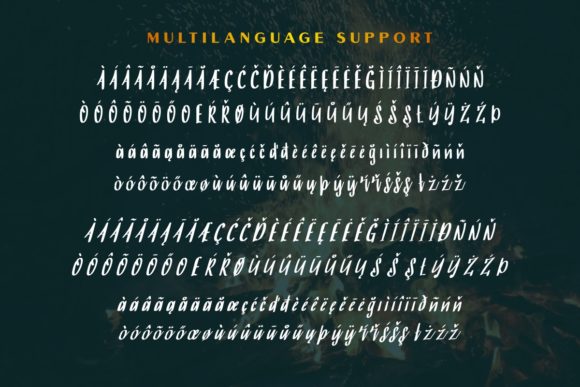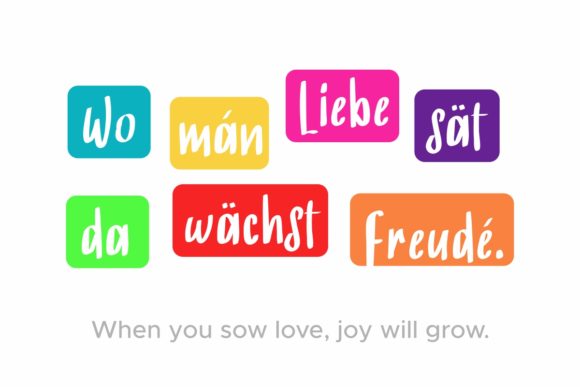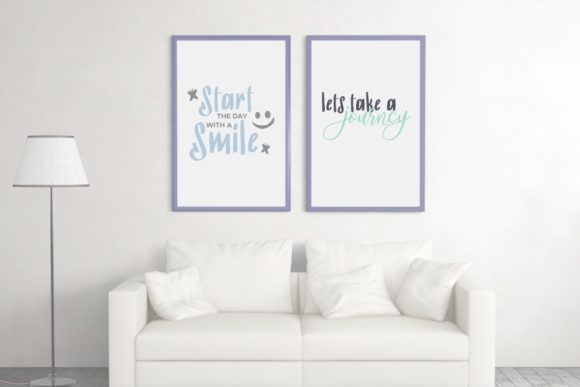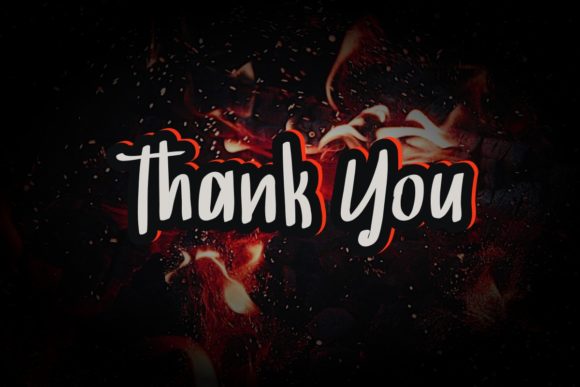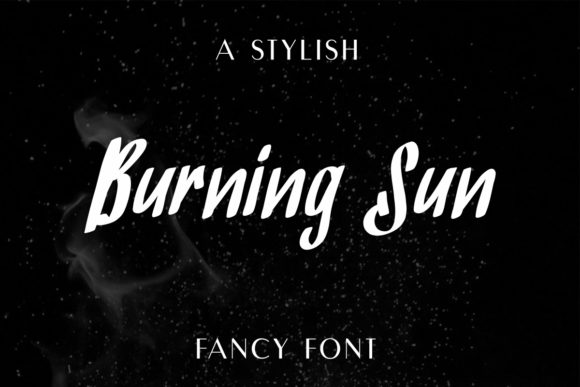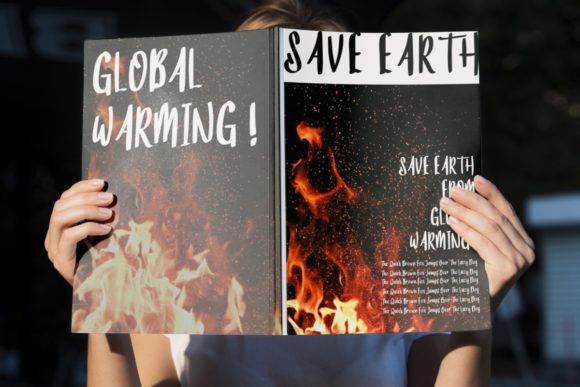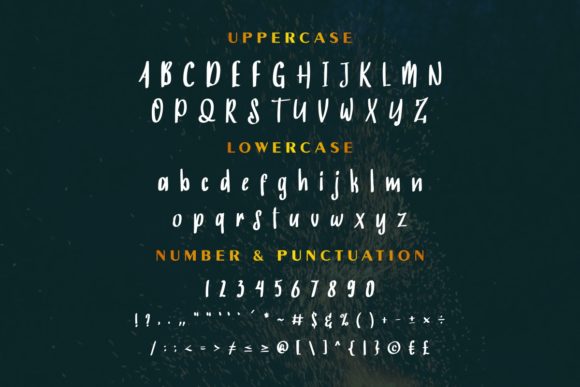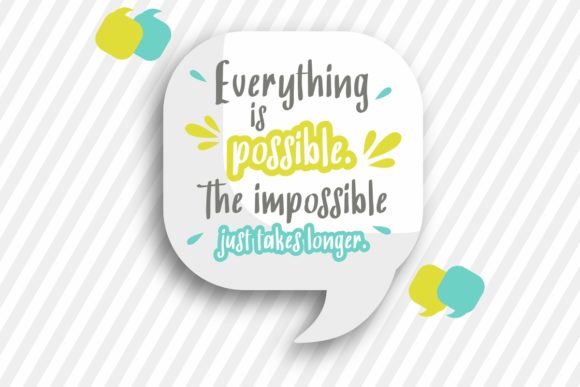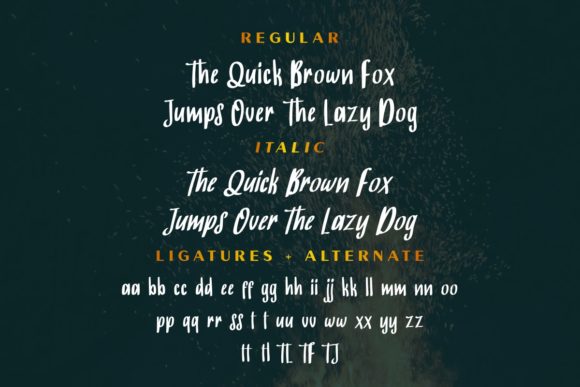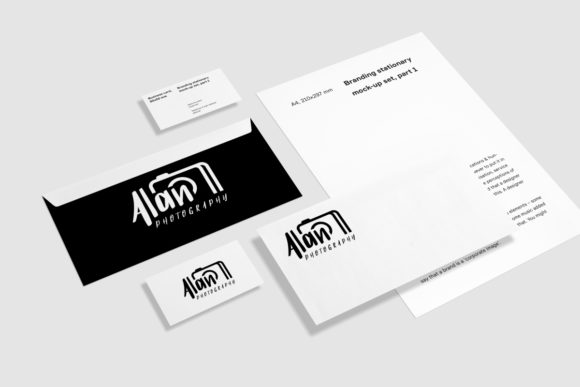
HomeScript FontsBurning Sun Font Script Fonts Burning Sun Font FacebookXPinterestWhatsApp Burning Sun Font Poster 2 Burning Sun Font Poster 3 Burning Sun Font Poster 4 Burning Sun Font Poster 5 Burning Sun Font Poster 6 Burning Sun Font Poster 7 Burning Sun Font Poster 8 Burning Sun Font Poster 9 Burning Sun Font Poster 10 Burning Sun Font Poster 11 Burning Sun Font Poster 12 Burning Sun Font Poster 13 About Burning Sun Font Burning Sun is a modern handwritten script font. Get inspired by its contemporary coolness! DOWNLOAD ON CREATIVE FABRICAThis font is sold and delivered by Creative Fabrica. Font Canyon may earn a commission if you buy through this link. People also explored Mangoks Font Mirabille Font Frame Creator Font Sellby Ridge Font MFC Damask Christmas Lovers Font Gem Font Croshed Font Victory 387 0 TagsBurning Sun Font Previous articleKaliarta FontNext articleGingham Afternoons Font LEAVE A REPLY Cancel reply Comment: Please enter your comment! Name:* Please enter your name here Email:* You have entered an incorrect email address! Please enter your email address here Website: Save my name, email, and website in this browser for the next time I comment. Personal Use Free Malinda Personal Use Free Read more about this font Short Message Personal Use Free Read more about this font Adriator Personal Use Free Read more about this font Abuget Free Script Personal Use Free Read more about this font BLOG To increase your work productivity, choose the most readable fonts. In today's fast-paced work environment, where digital communication and information consumption are integral to our daily routines, the choice of fonts can significantly impact... Exploring Font Trends Top 7 Google Fonts Alternatives for Faster and Privacy-Friendly Web Design (2025) Using Fonts in Digital Marketing: Tips to Strengthen Your Brand Identity